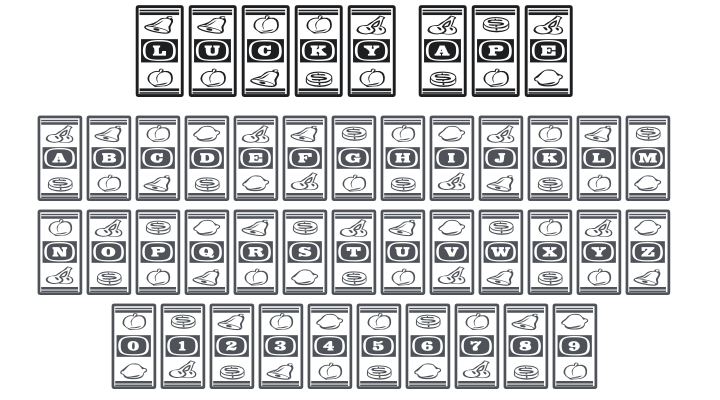
Lucky Ape Font
About Lucky Ape
Lucky Ape is a novelty dingbat typeface where every letter appears inside a slot machine reel — each character sits in a rounded rectangular tile flanked above and below by fruit symbols like bells, cherries, and plums, just like a real one-armed bandit. Utterly unique and instantly recognizable. Perfect for casino-themed designs, gambling branding, retro arcade graphics, novelty posters, and any project needing playful, jackpot-winning charm.